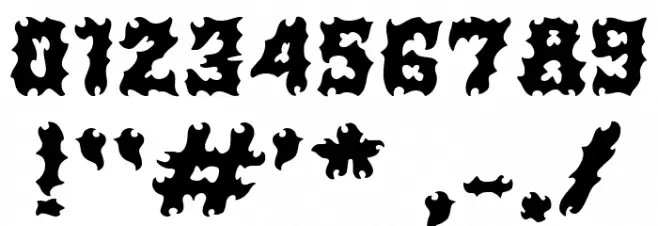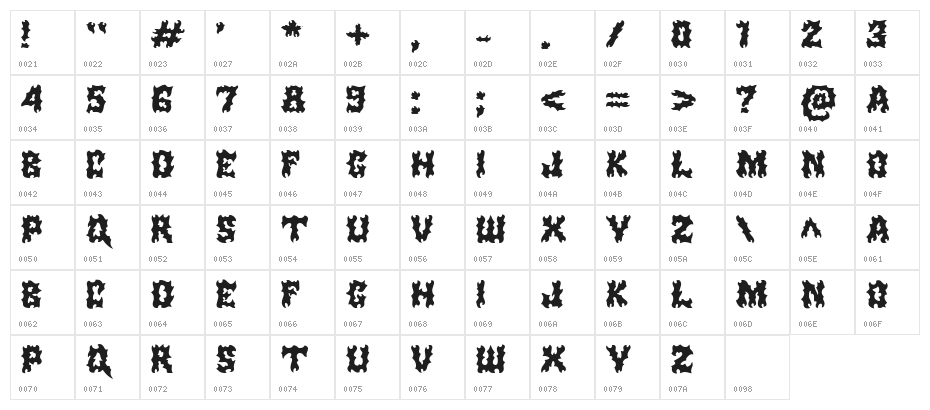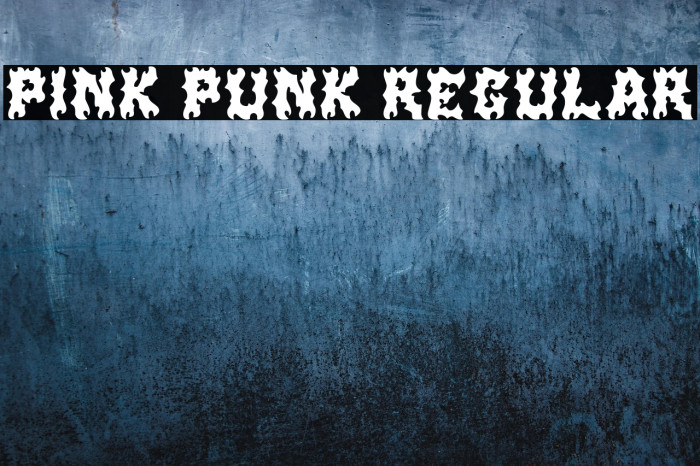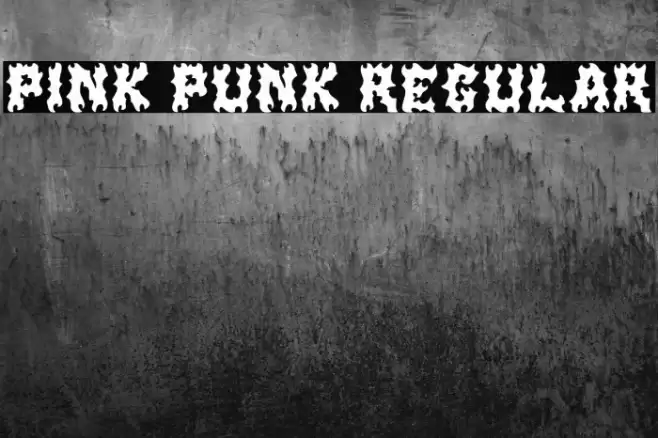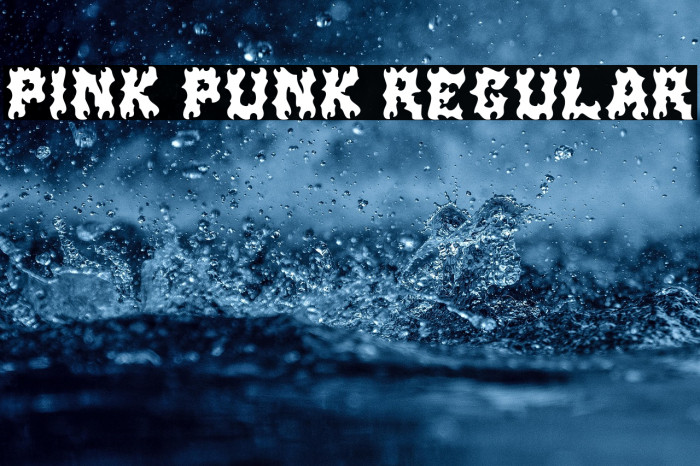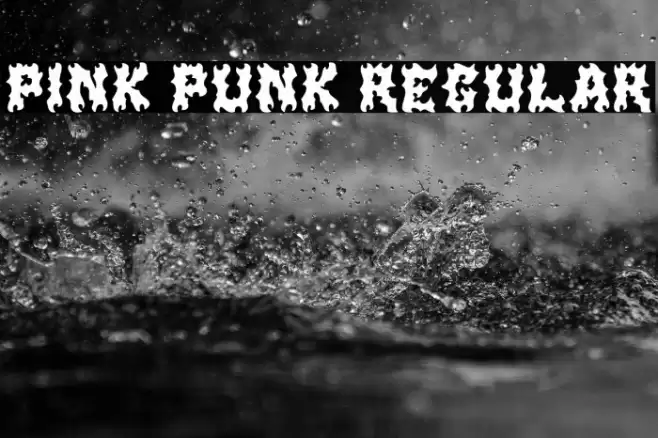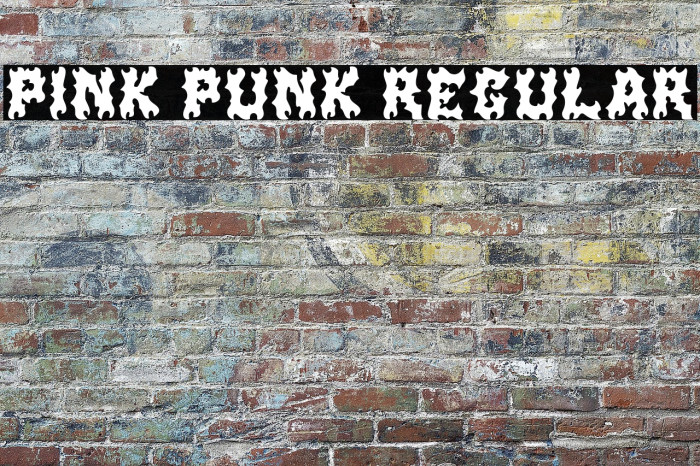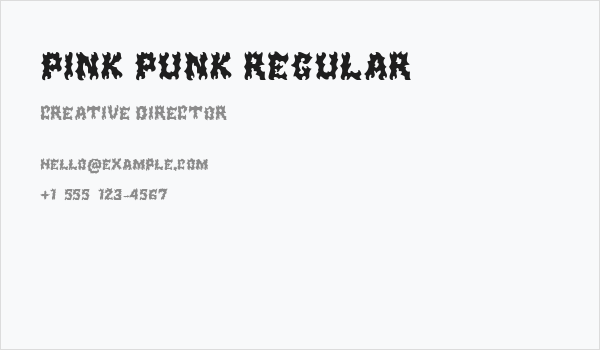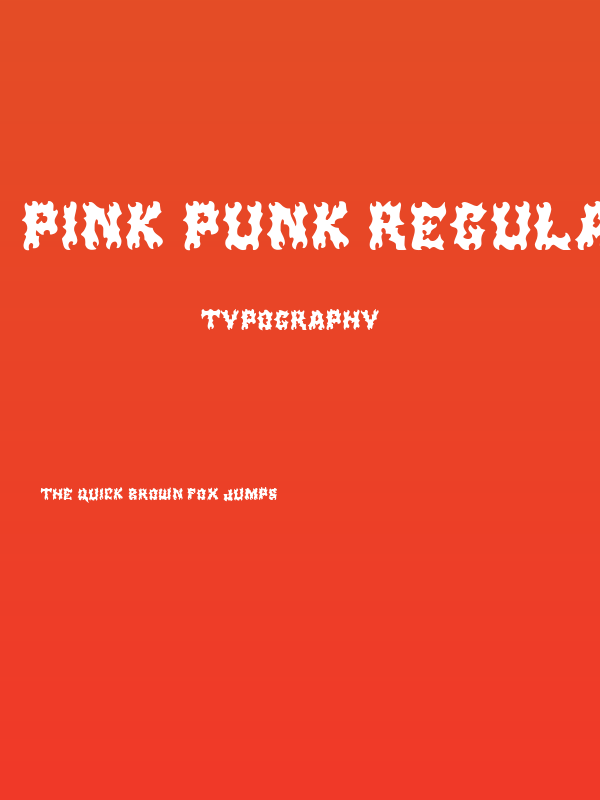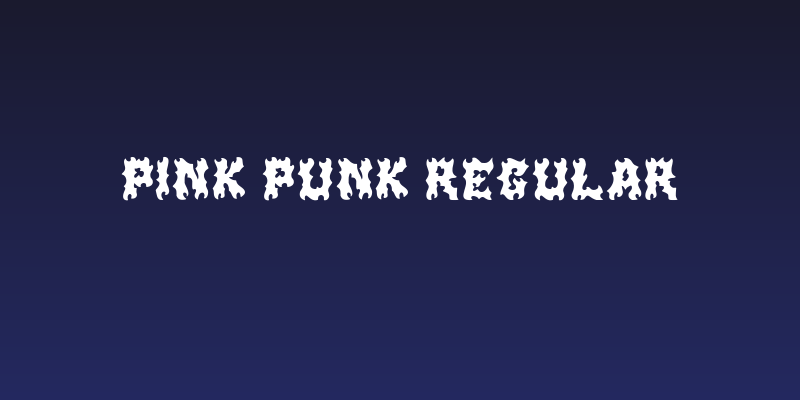
Pink Punk Regular Font
Pink Punk Regular Description
This font features a bold and edgy design with a punk-inspired aesthetic. The characters are heavily stylized with irregular, jagged edges that give them a dynamic and rebellious feel. Each letter appears to be crafted with a sense of movement and energy, making it stand out with its unique and unconventional appearance. The font's boldness is emphasized by its thick strokes and high contrast, creating a striking visual impact. It is ideal for projects that require a strong, attention-grabbing typeface with a modern and artistic flair.
| Overall Style | Modern, Punk |
| Proposed Projects | Album covers, posters, streetwear branding, event flyers, and any project needing a bold, rebellious aesthetic. |